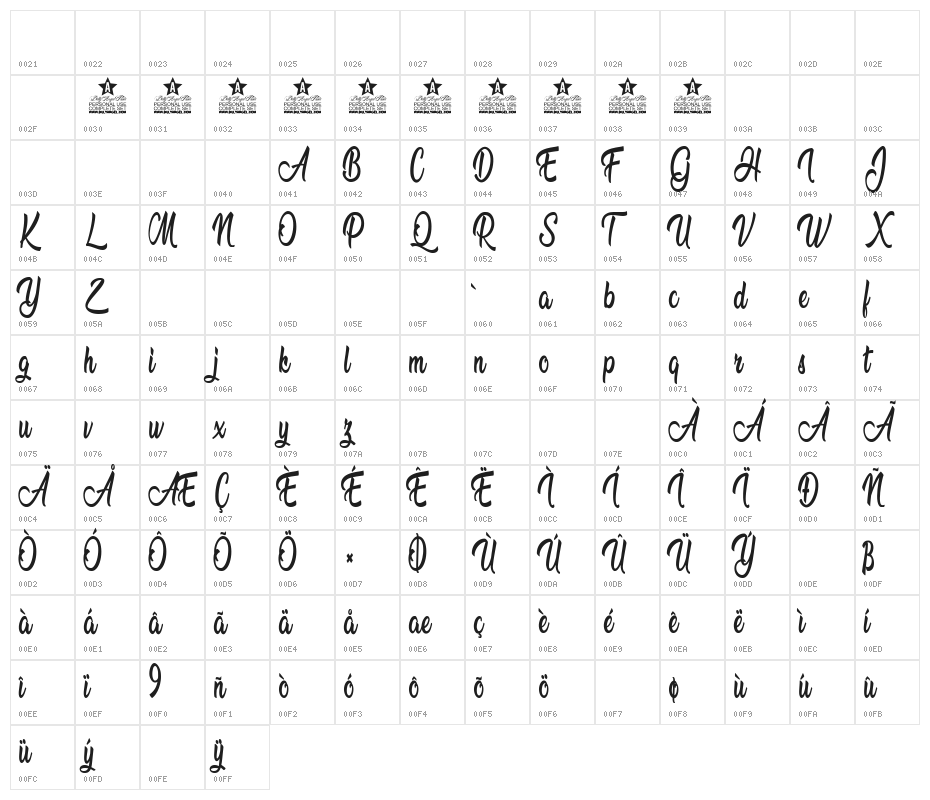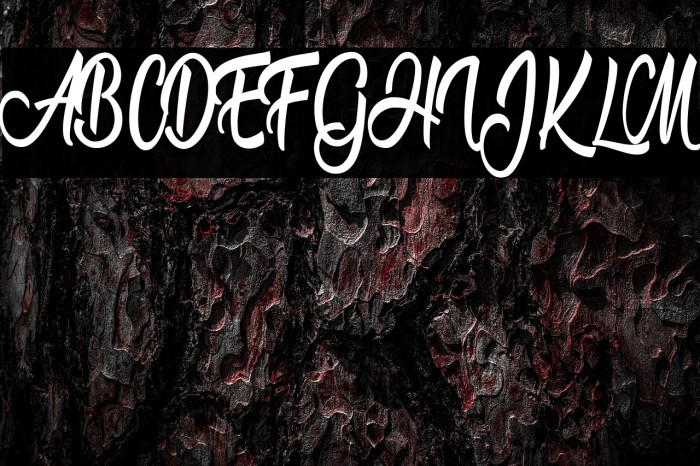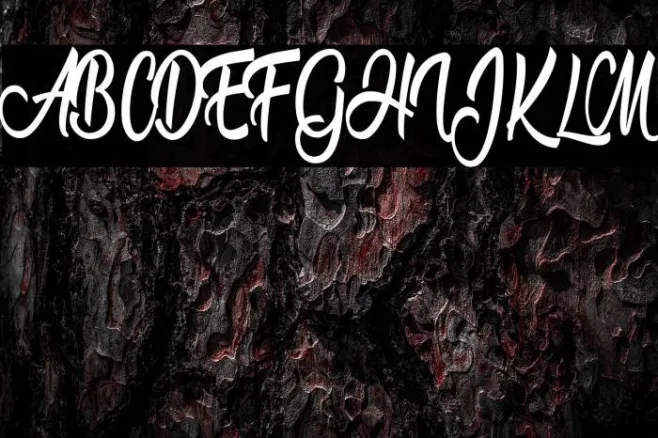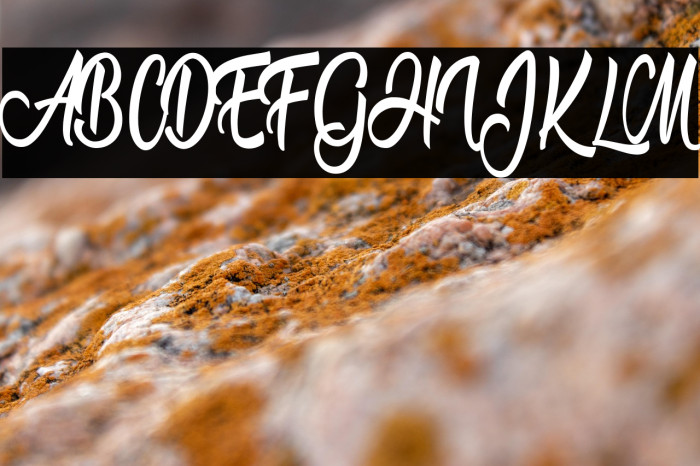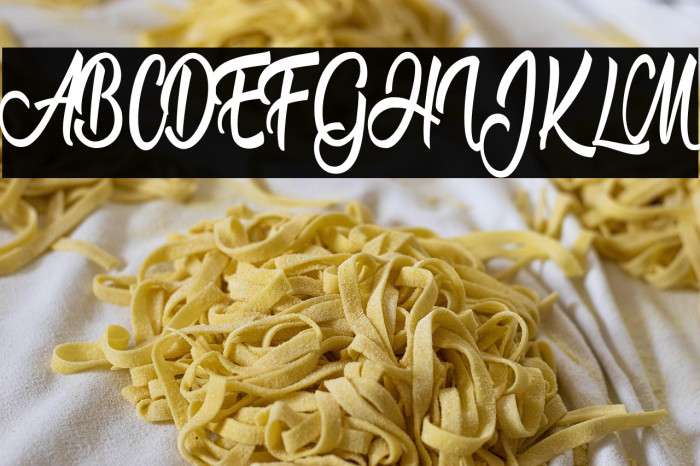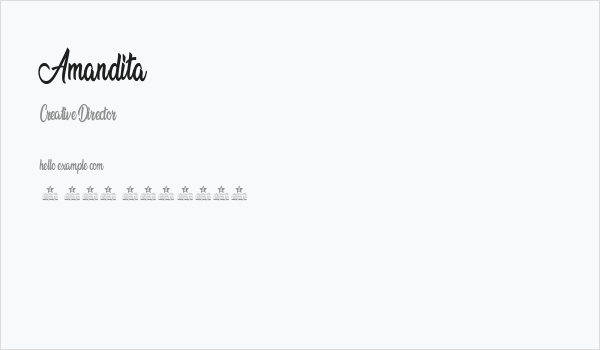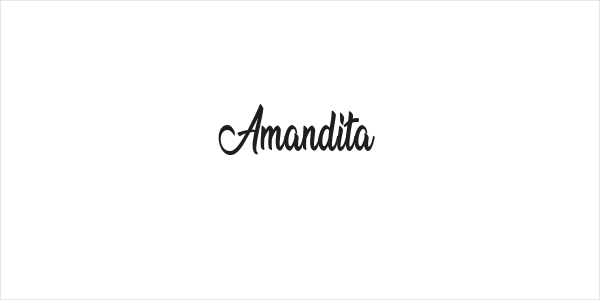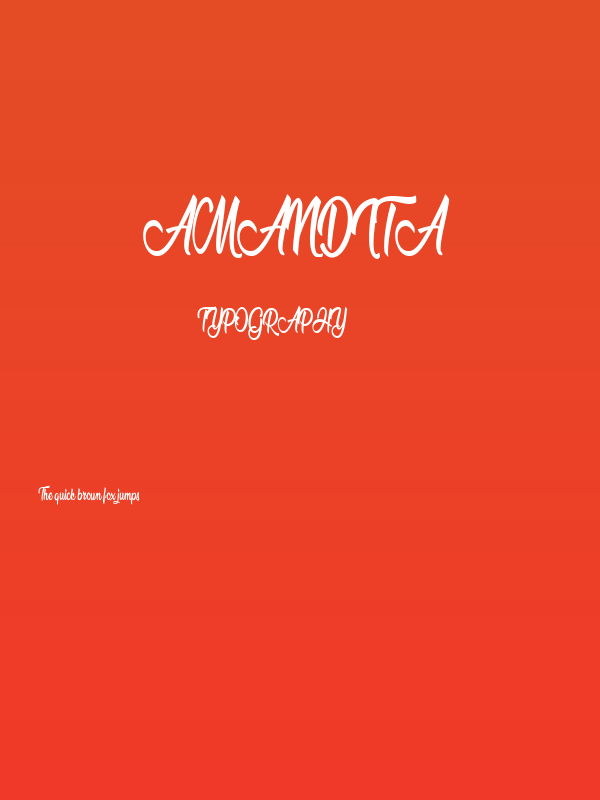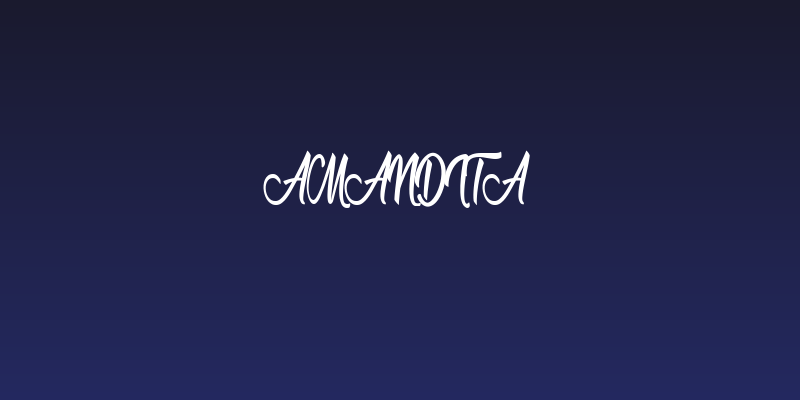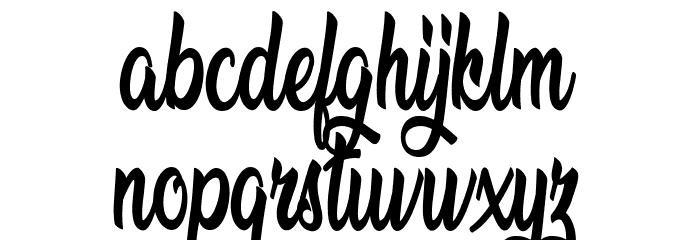
Amandita Font
Amandita Description
This font features a bold and flowing script style, characterized by its elegant and cursive letterforms. The uppercase letters are particularly ornate, with sweeping curves and flourishes that add a touch of sophistication. The lowercase letters maintain a consistent flow, enhancing readability while preserving the decorative nature of the font. The numbers and special characters are designed to match the overall aesthetic, making them suitable for a variety of creative applications. The font's style is reminiscent of traditional calligraphy, yet it maintains a modern appeal, making it versatile for both classic and contemporary designs.